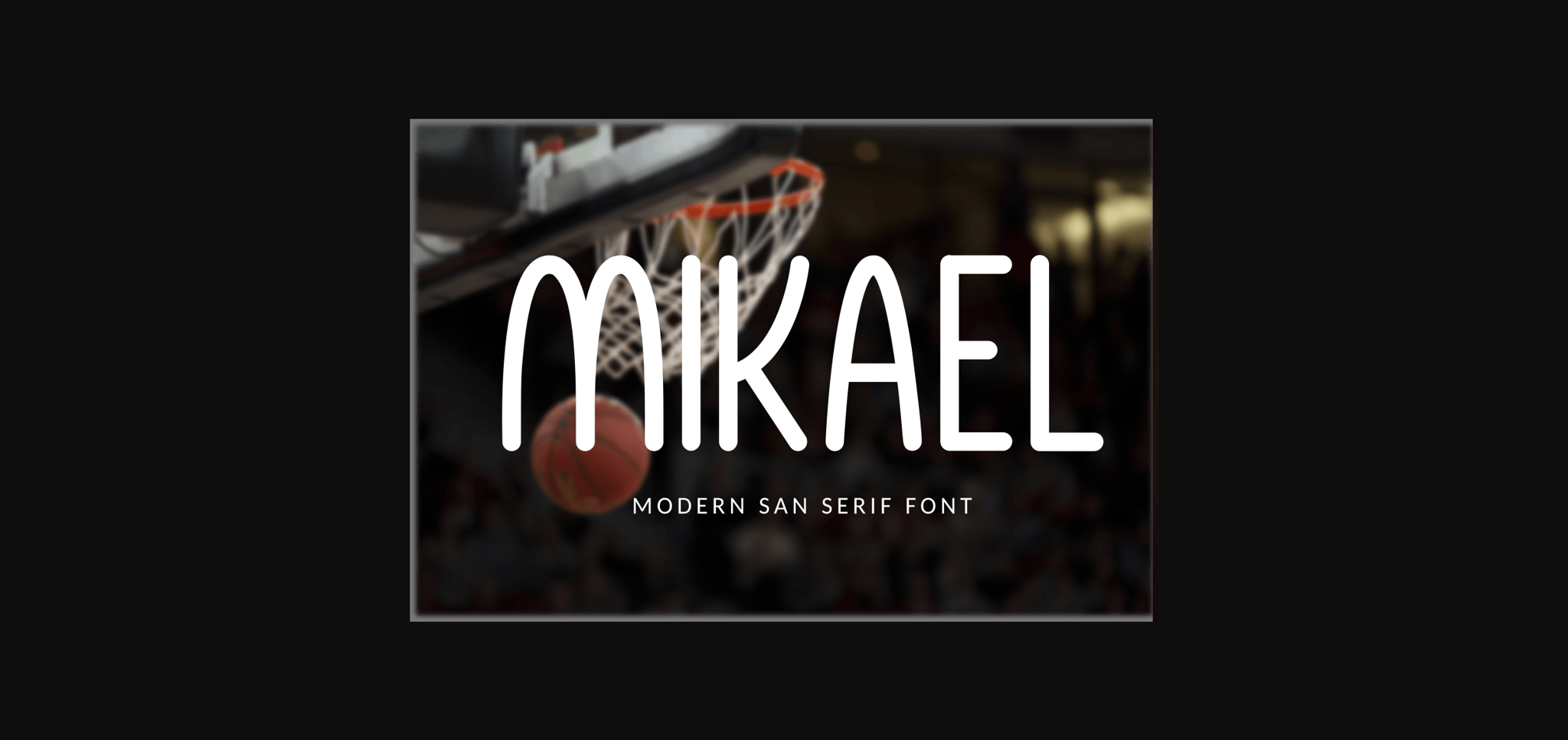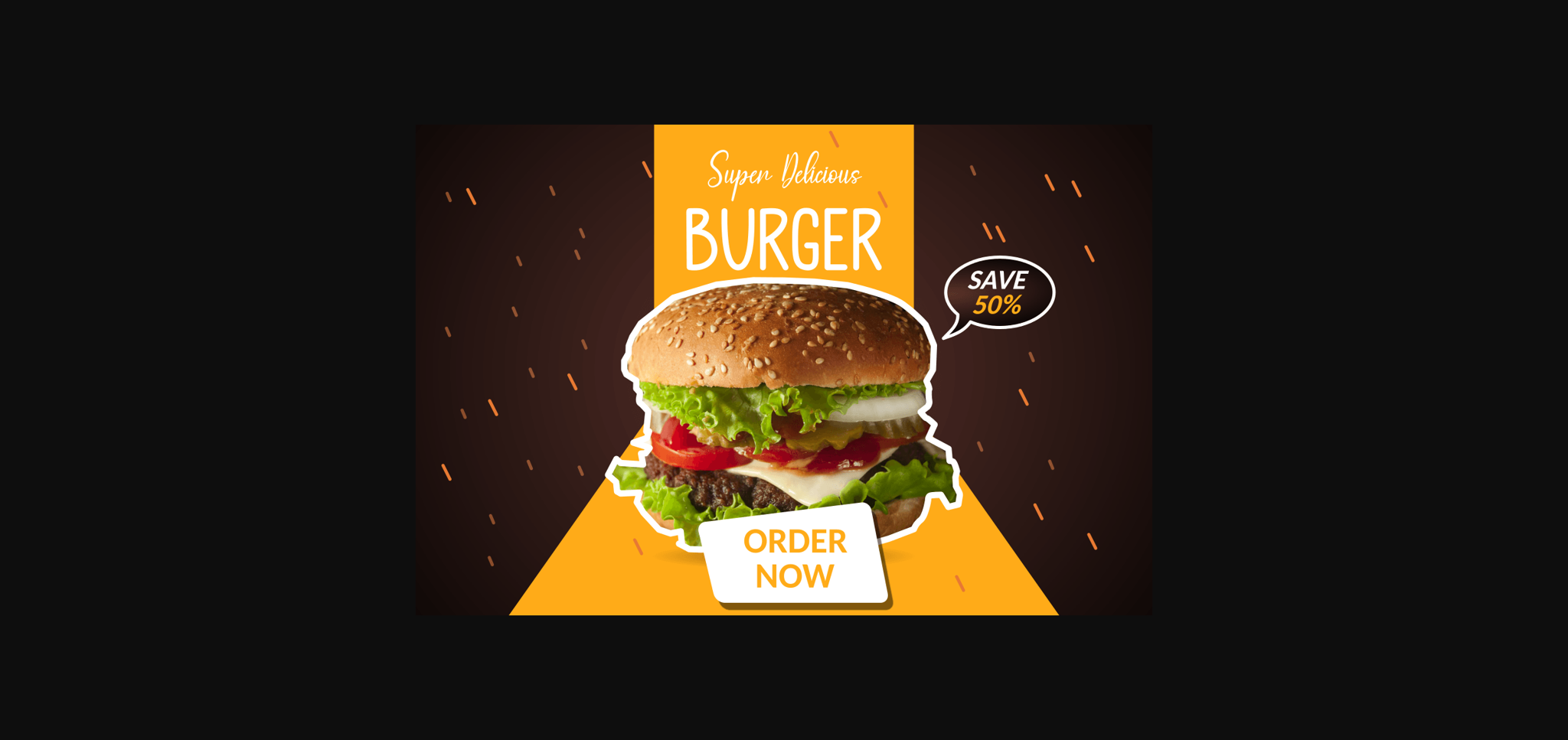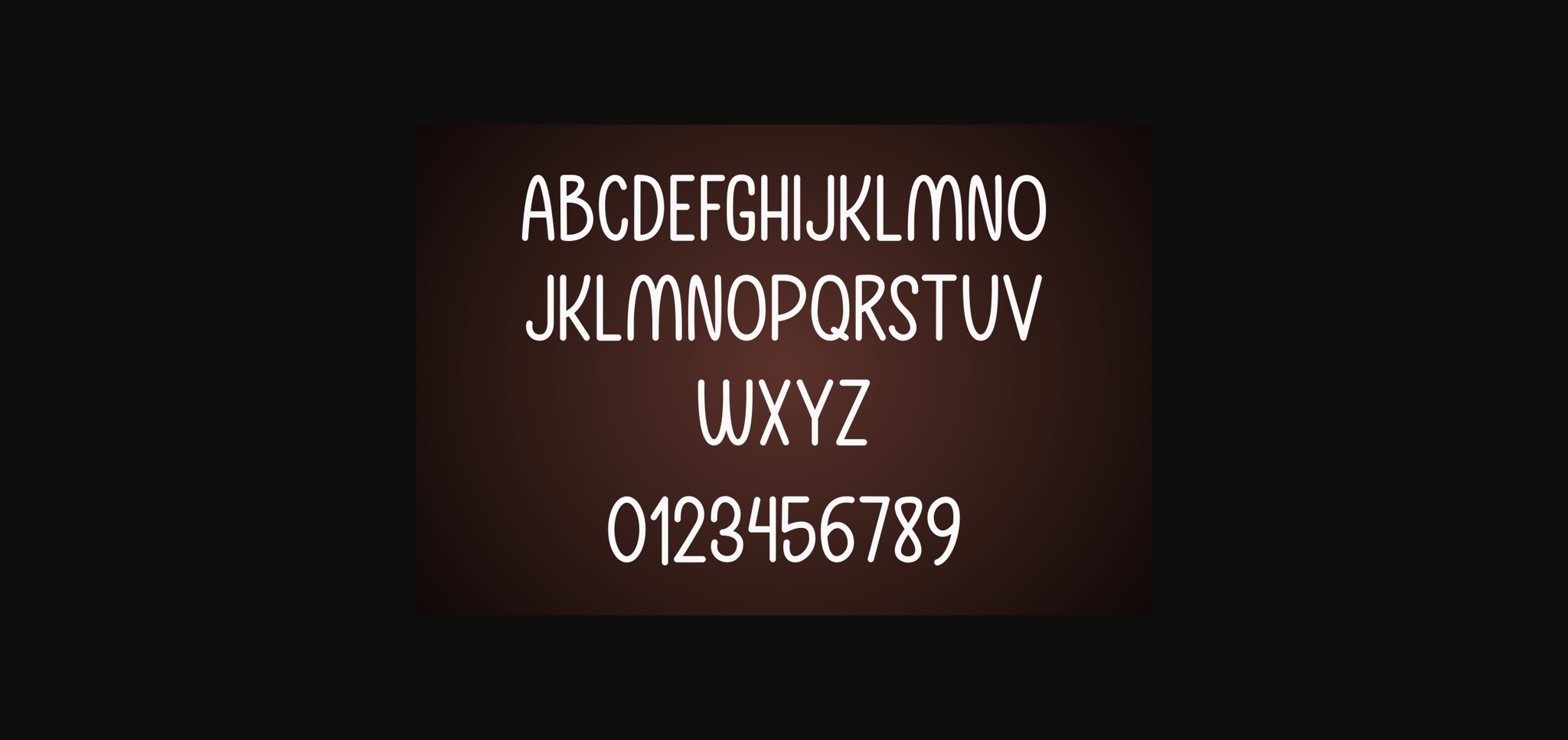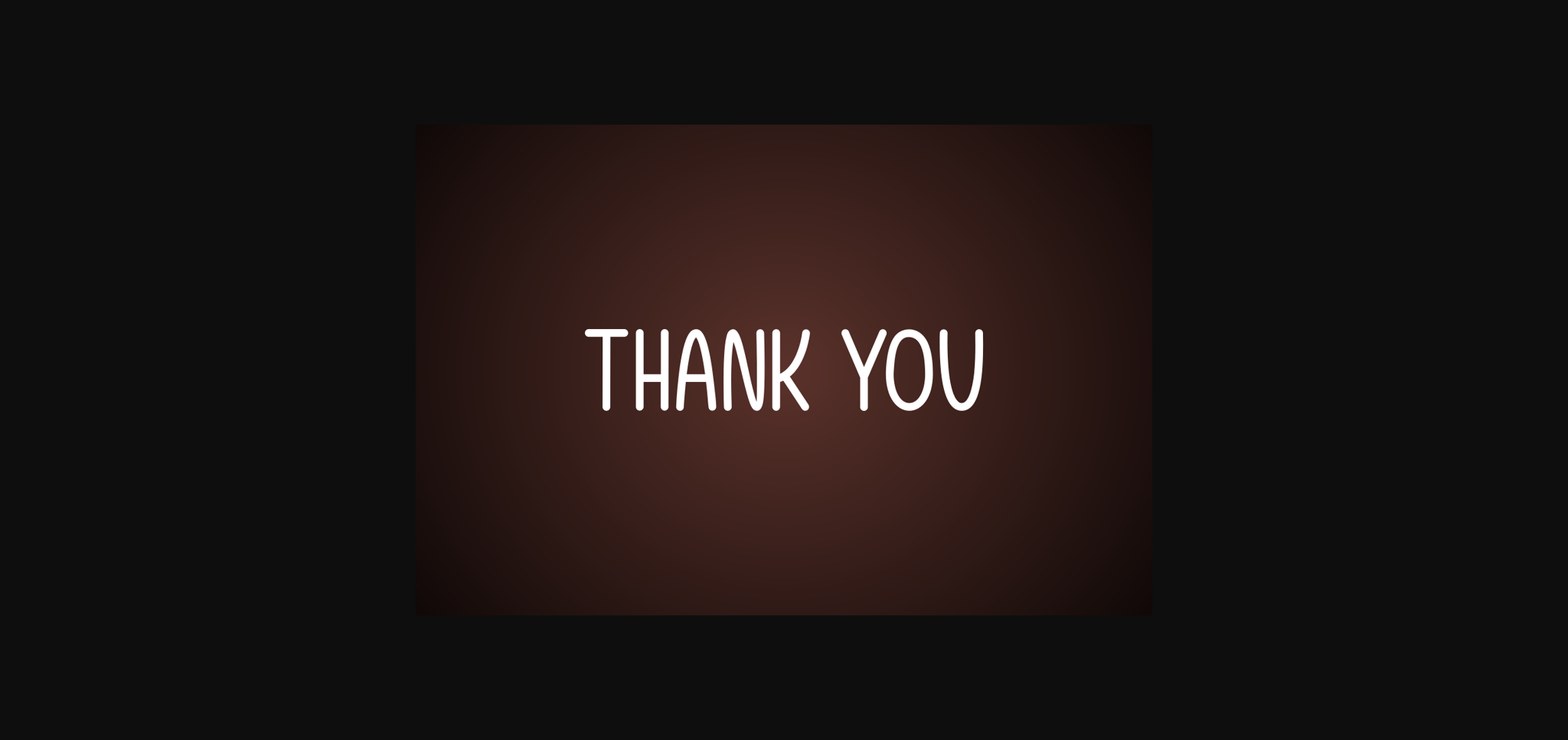
Mikael is a minimal and neat sans serif font. It can easily be matched to an incredibly large set of projects, so add it to your creative ideas and notice how it makes them stand out!